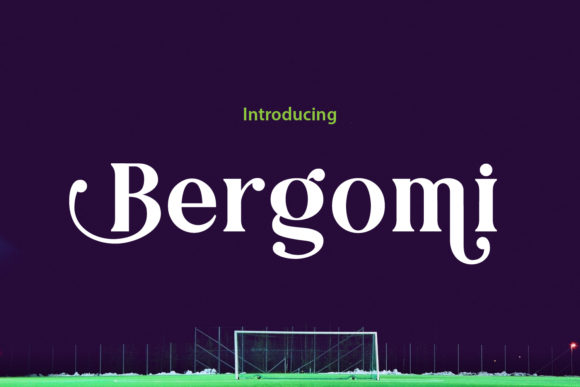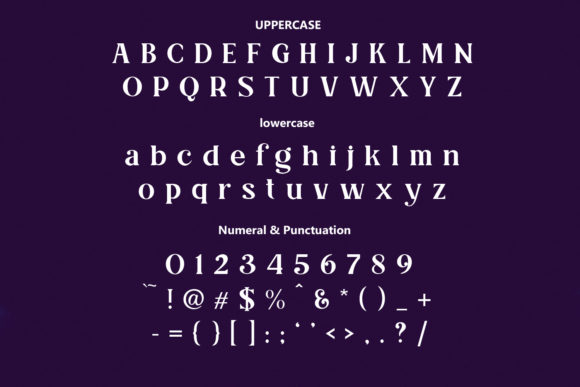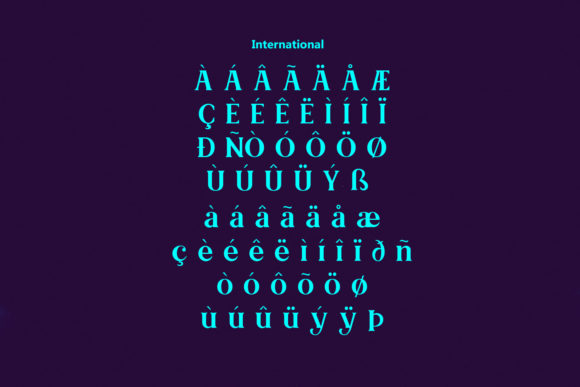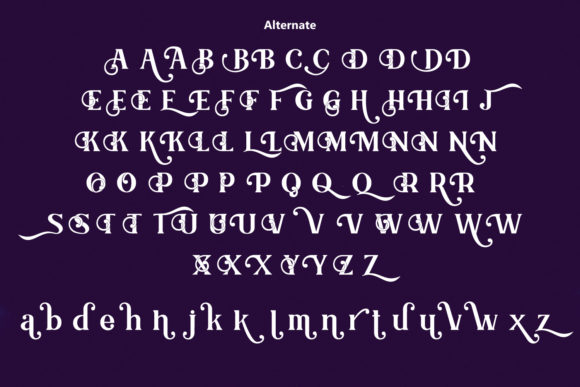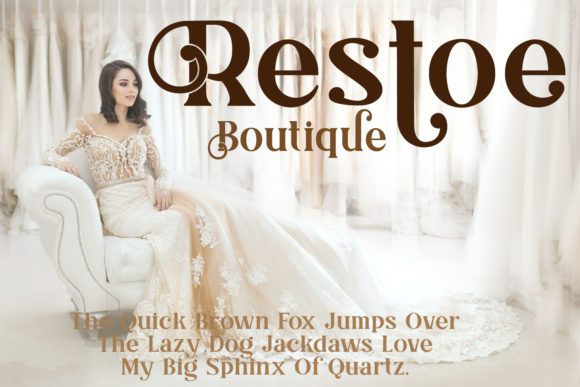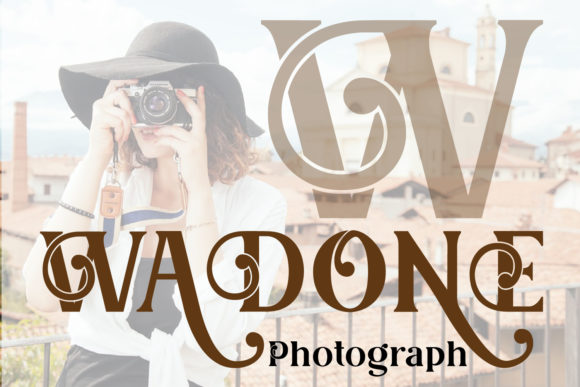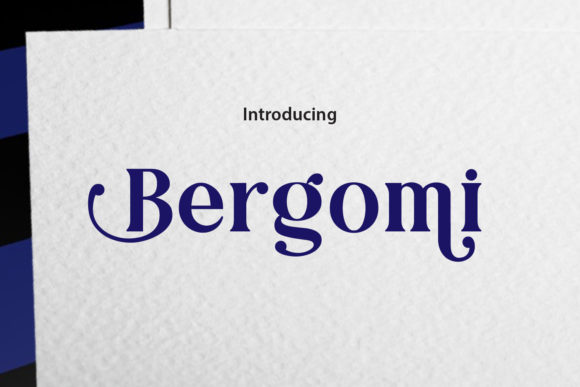
Bergomi Font: Elevate Your Designs with Sophistication and Elegance
In the world of typography, a well-chosen font can make all the difference in the success of a design project. For designers and crafters seeking a serif font that exudes boldness, sophistication, and versatility, Bergomi Font is an exceptional choice. This stylishly designed serif font is perfect for a wide range of applications, including logos, branding, packaging design, and more.
What Makes Bergomi Font Stand Out?
Bergomi Font boasts a unique blend of boldness and refinement, making it an ideal choice for designers looking to create a lasting impression. Its key features include:
• Varying Baseline: Bergomi’s varying baseline adds a touch of elegance and sophistication to any design, setting it apart from more traditional serif fonts.
• Smooth Lines: The font’s smooth lines and curves create a sense of fluidity and harmony, making it perfect for designs that require a high level of visual appeal.
• Gorgeous Glyphs: Bergomi Font features a wide range of stunning glyphs, providing designers with ample opportunities to add creative flair to their projects.
• Stunning Alternates: With Bergomi, you’ll have access to a variety of alternate characters, allowing you to experiment with different styles and create unique designs.
Why Bergomi Font is a Must-Have for Designers and Crafters
Bergomi Font is an exceptional addition to any designer’s or crafter’s toolkit. Its versatility, elegance, and boldness make it perfect for a wide range of applications, including:
• Logo Design: Bergomi’s unique blend of boldness and sophistication makes it an excellent choice for logos that require a lasting impression.
• Branding: The font’s elegant and refined features make it perfect for branding projects that require a high level of sophistication.
• Packaging Design: Bergomi’s smooth lines and gorgeous glyphs make it an excellent choice for packaging design projects that require visual appeal and creativity.
In conclusion, Bergomi Font is a stylishly designed serif font that offers a unique blend of boldness, sophistication, and versatility. Its PUA encoding, varying baseline, smooth lines, gorgeous glyphs, and stunning alternates make it a true must-have for designers and crafters. Whether you’re working on a logo design, branding project, or packaging design, Bergomi Font is an exceptional choice that will elevate your designs to new heights.